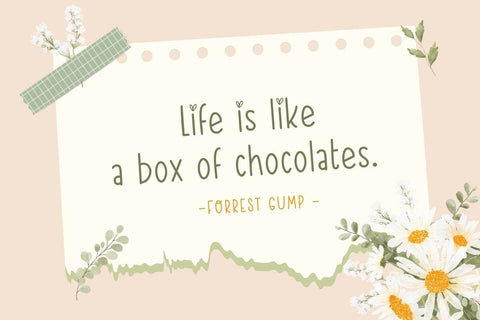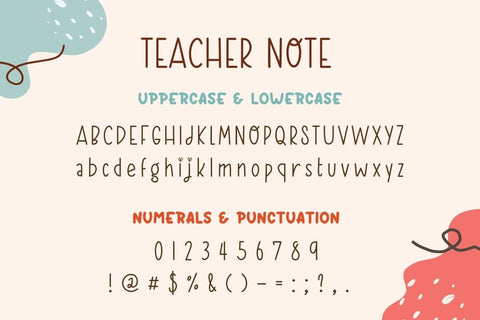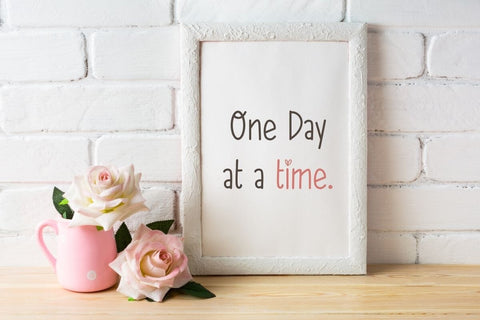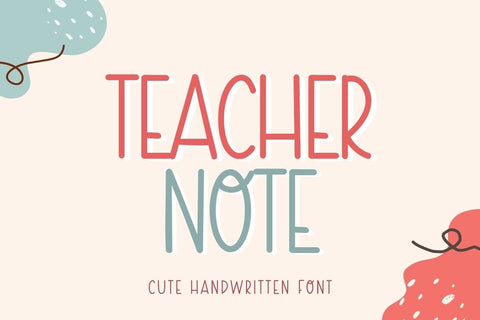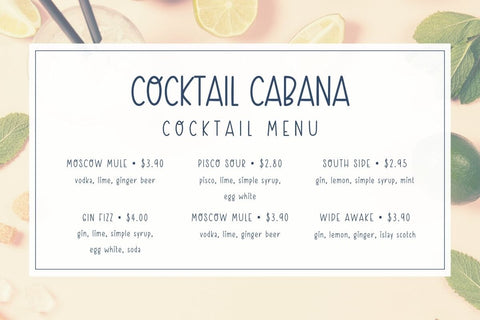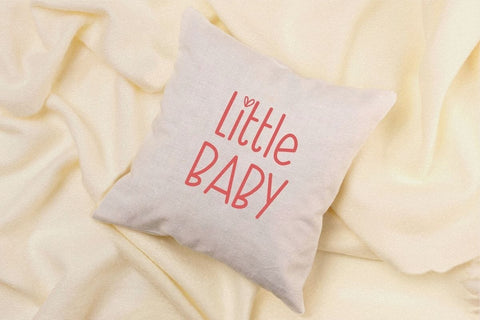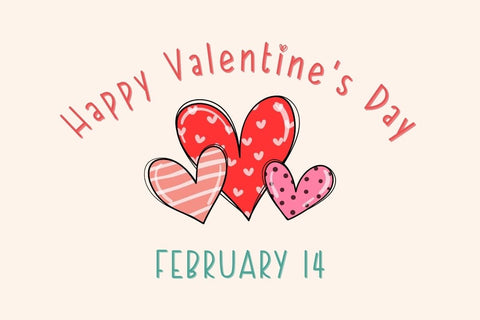
Teacher Note - Handwritten Font
Teacher Note Font - the perfect companion for all your note-taking, journaling, and card-making needs. Crafted with precision, this font adds a touch of elegance and personality to your digital projects.
📝 Effortless Note-Taking - (Feature: Smooth, flowing characters) - Write with ease and clarity, capturing your thoughts and ideas effortlessly.
📖 Journaling Joy - (Feature: Versatile style) - Elevate your journaling experience with a font that reflects your unique style.
💌 Heartfelt Greeting Cards - (Feature: Elegant curves) - Design stunning, personalized greeting cards that leave a lasting impression.
🎁 Unique and Memorable - (Feature: Handcrafted authenticity) - Create one-of-a-kind content that stands out in a sea of ordinary fonts.